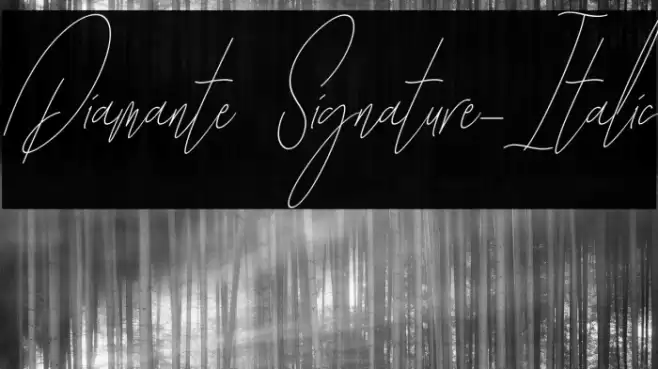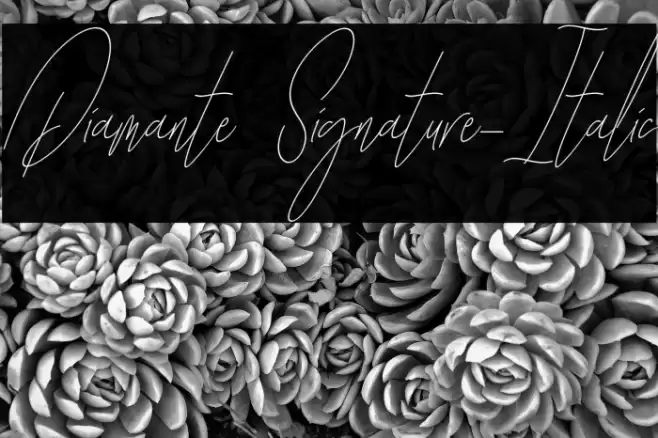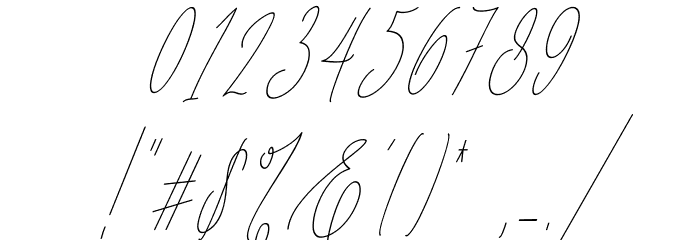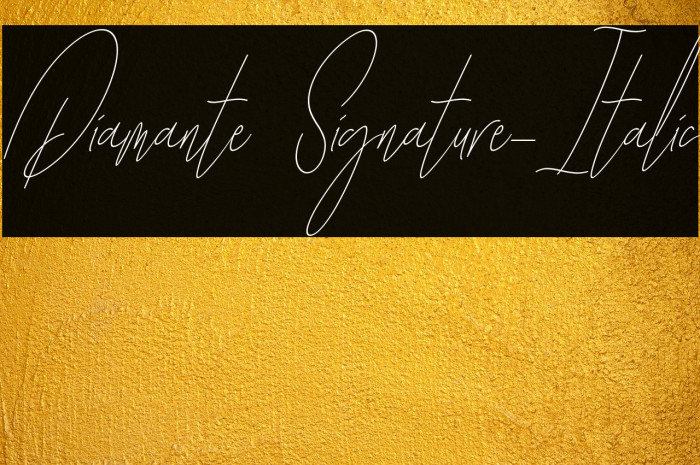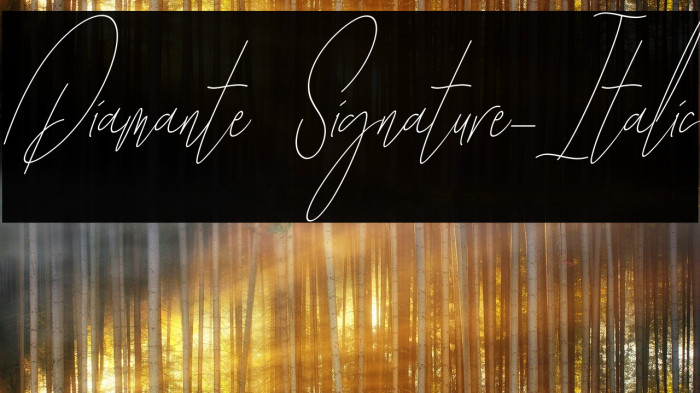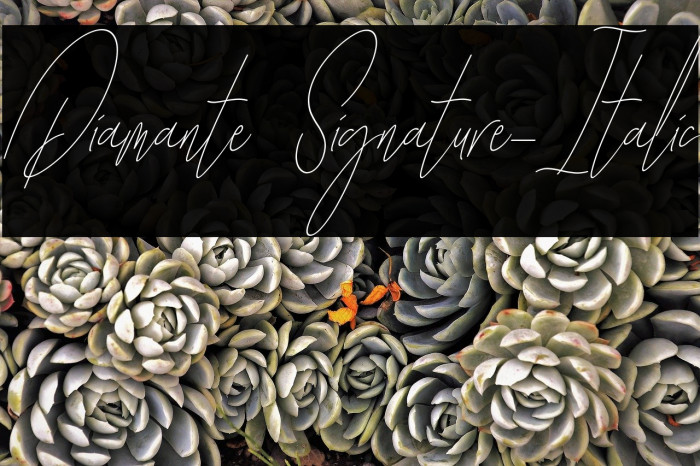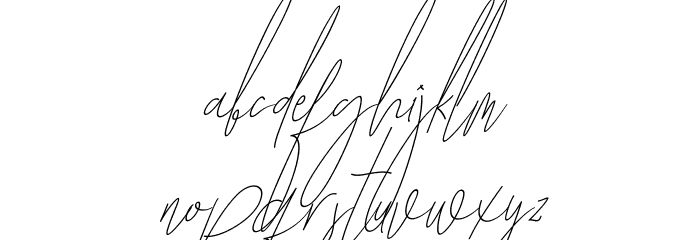
Diamante Signature_Italic Font
Diamante Signature_Italic Description
This elegant script font features a flowing, cursive style with a distinct italic slant. The characters are connected, creating a seamless and sophisticated appearance. The strokes are thin and delicate, giving it a refined and graceful look. The uppercase letters are tall and slightly exaggerated, while the lowercase letters maintain a consistent height, enhancing readability. The numerals and special characters are designed to match the overall aesthetic, making it suitable for formal and decorative purposes.
A refined, cursive script font with an elegant italic slant from Uncategorized fonts.
- Proposed Projects: Ideal for wedding invitations, elegant branding, personal signatures, and high-end product packaging.
- Weight: Light
- Character Spacing: Tight
- Overall Style: Elegant
- Use Case: Logos, Invitations, Branding